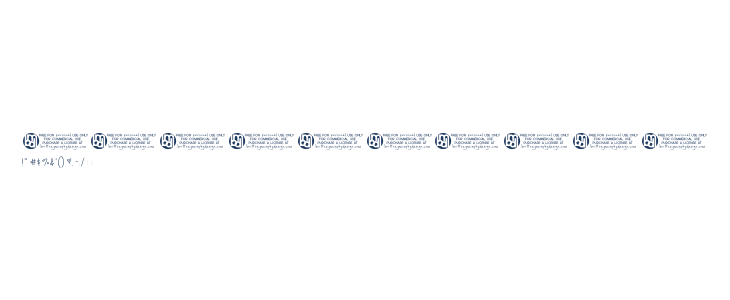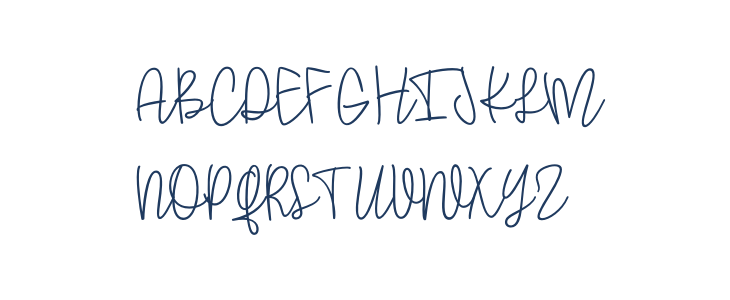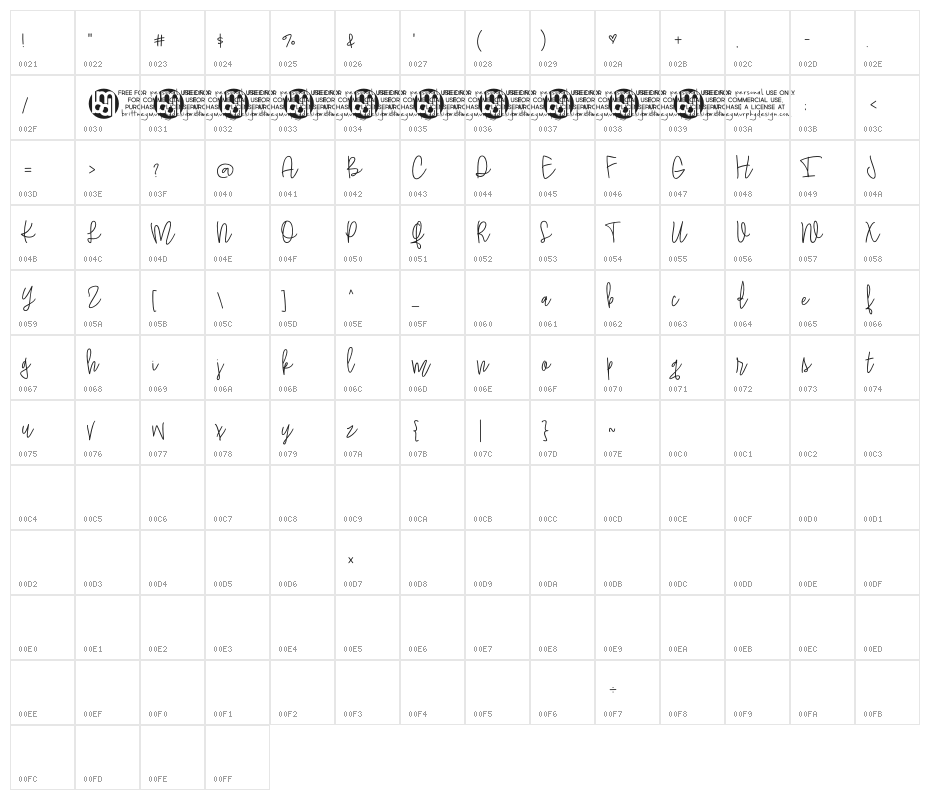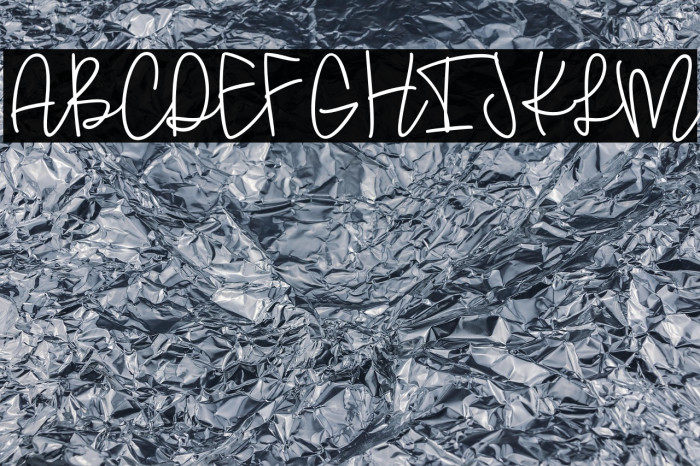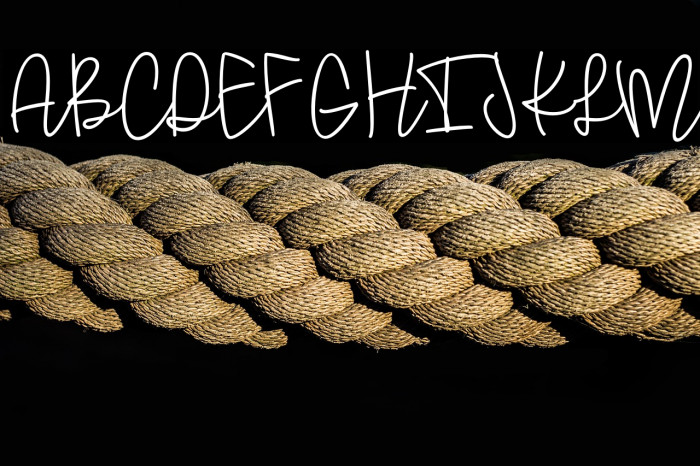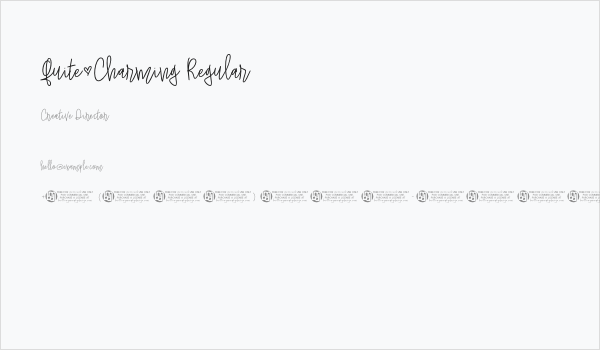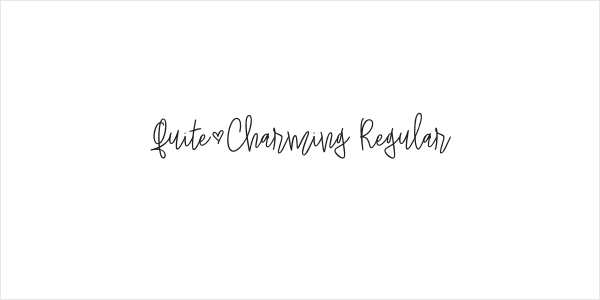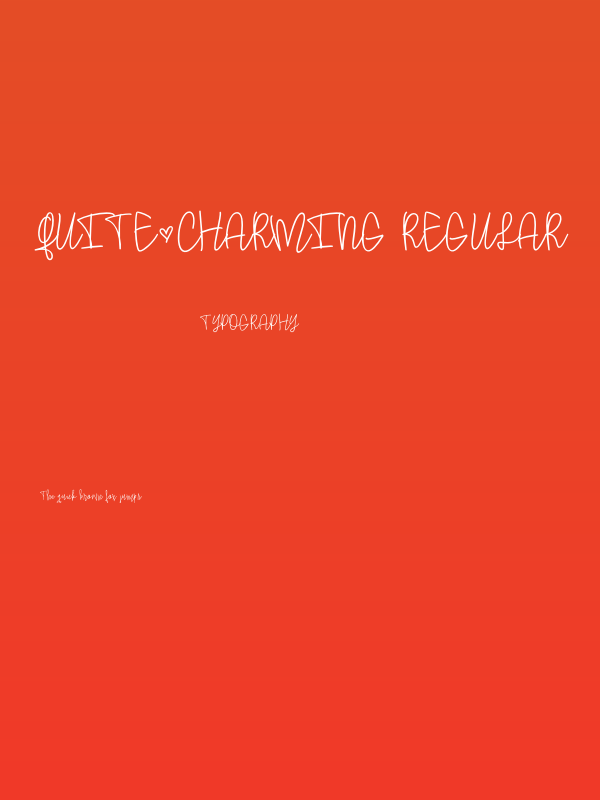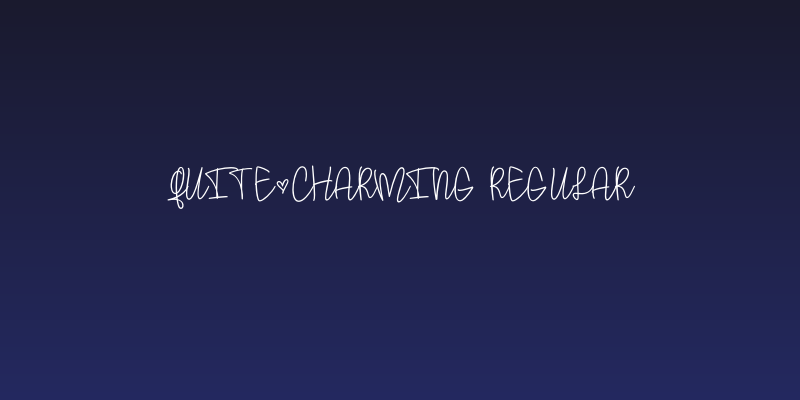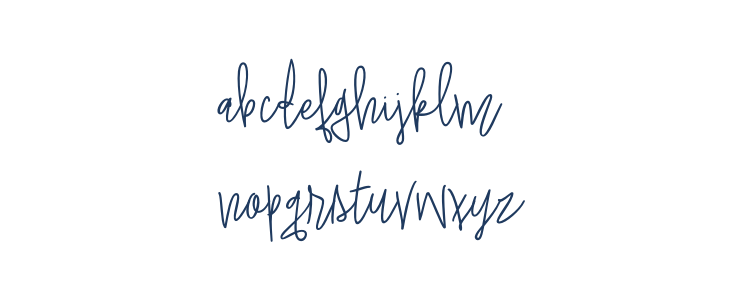
Quite*Charming Regular Font
Quite*Charming Regular Description
A playful, handwritten script font with tall, narrow letters and fluid, connected strokes. The lines are thin with consistent weight, giving it a casual and charming appearance.
| Overall Style | Decorative, Playful, Modern |
| Use Case | Logos, Headlines, Invitations, Social media |
| Proposed Projects | Greeting cards, invitations, quotes, social media graphics, branding for creative businesses. |